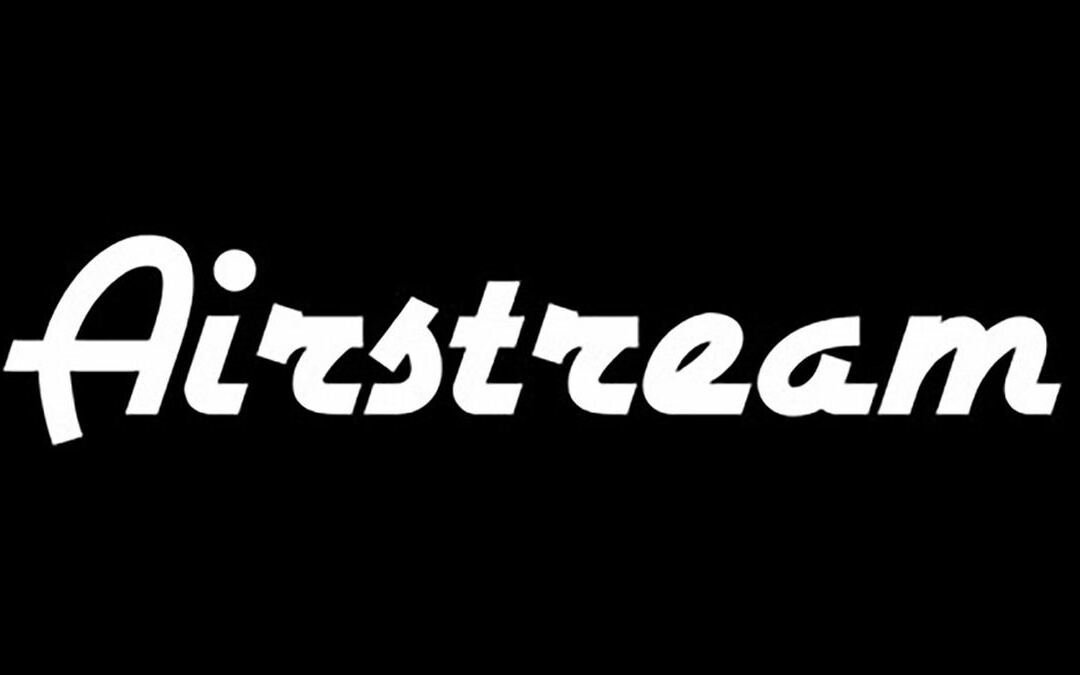
Upload a slightly of class for your designs with those ribbon fonts. Those fonts, to be had without spending a dime, are designed to imitate the fluid and swish curves of ribbons, making them very best for including a slightly of class for your initiatives.
Those ribbon fonts are flexible and can be utilized in a number of designs, from invites and emblems to posters and headlines. They provide a singular mix of fashion and capability, making them a precious addition to any fashion designer’s toolkit. So, get started exploring those ribbon fonts and lift your designs to new heights.
#1. Airstream
#2. Cyrillic Ribbon
#3. HFF Ribbon
#4. Curly Ribbons
#5. Ribbon Trim
#6. Ribbon Glad
#7. Ribbons Daring
#8. Ribbon Of Hope
#9. Ribbonsextended
#10. Tribbon Layered Font
#11. Bladeline
#12. RIDGE Typeface
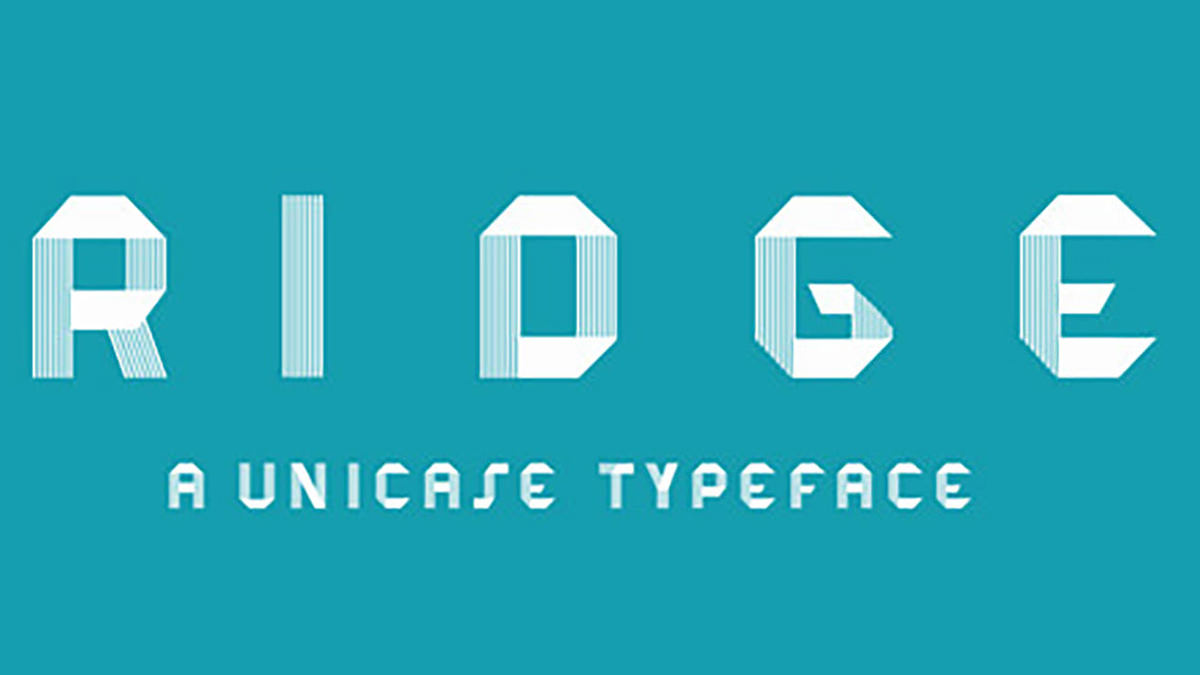
#13. Ribbon
#14. Ribbon Font
#15. Riesling
#16. BCS Benwood
#17. Uralita Font
#18. Barkentina Typeface and Unfastened Font
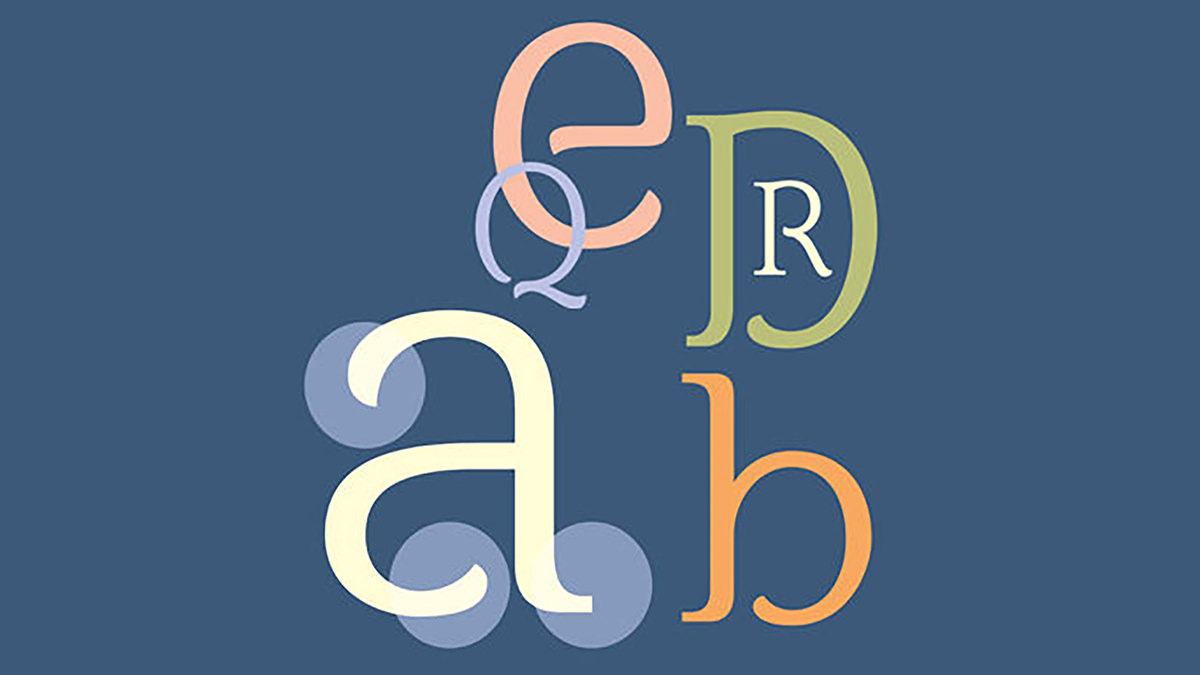
#19. Ribbon
#20. Colored Set Paper Ribbon
#21. Craft Ribbon Font
#22. Carolyna
#23. Noveu
#24. Font from Reddish Scotch Tape
#25. Blu